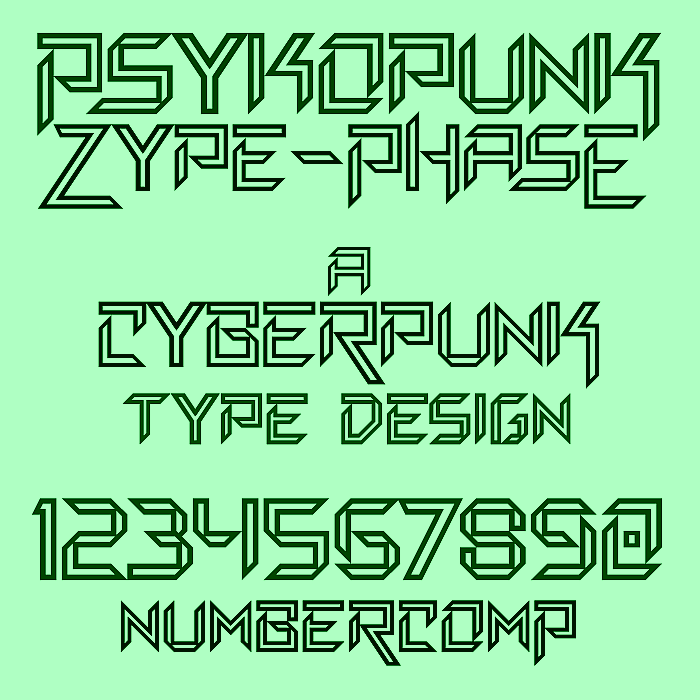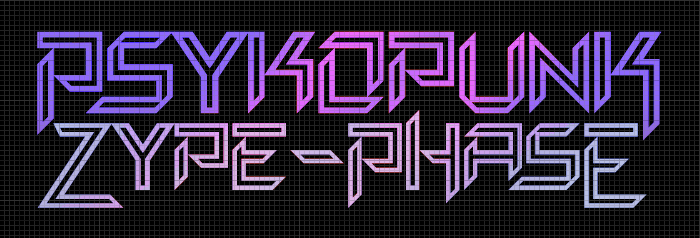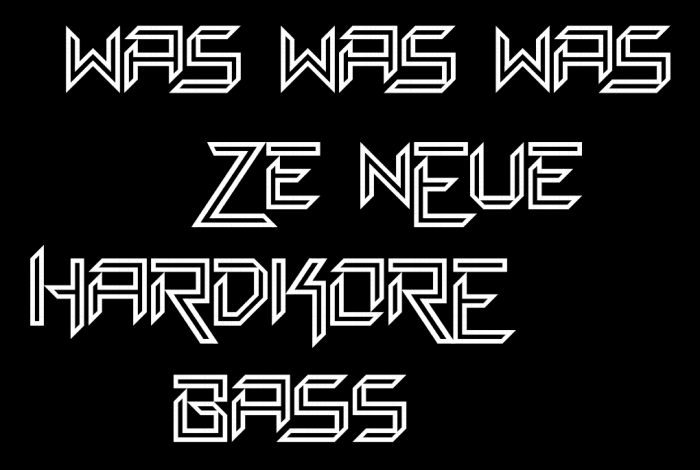
My FontStruct 15th anniversary celebration mini font. (Previously unreleased).
I especially like the letters with descenders, they add a lot of freshness to the font!
I pulled this one from the competition....